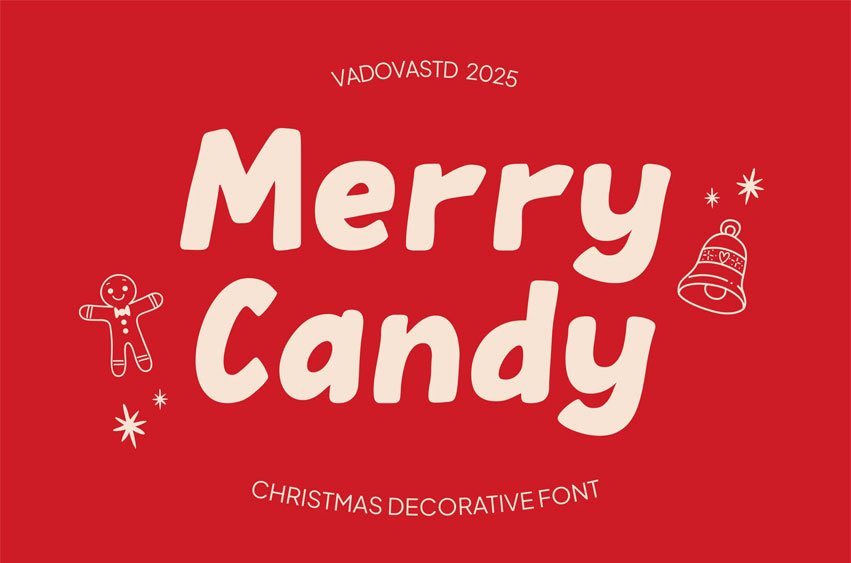
Merry Candy Font is a cheerful and cozy decorative font inspired by the warmth of Christmas joy. With soft, rounded shapes and playful strokes, this typeface captures the sweetness of candy canes and the festive mood of holiday celebrations. Perfect for Christmas cards, kids’ illustrations, posters, packaging, and social media designs, it delivers a friendly and heartwarming look for all your seasonal projects. Includes uppercase, lowercase, numerals, and punctuation.